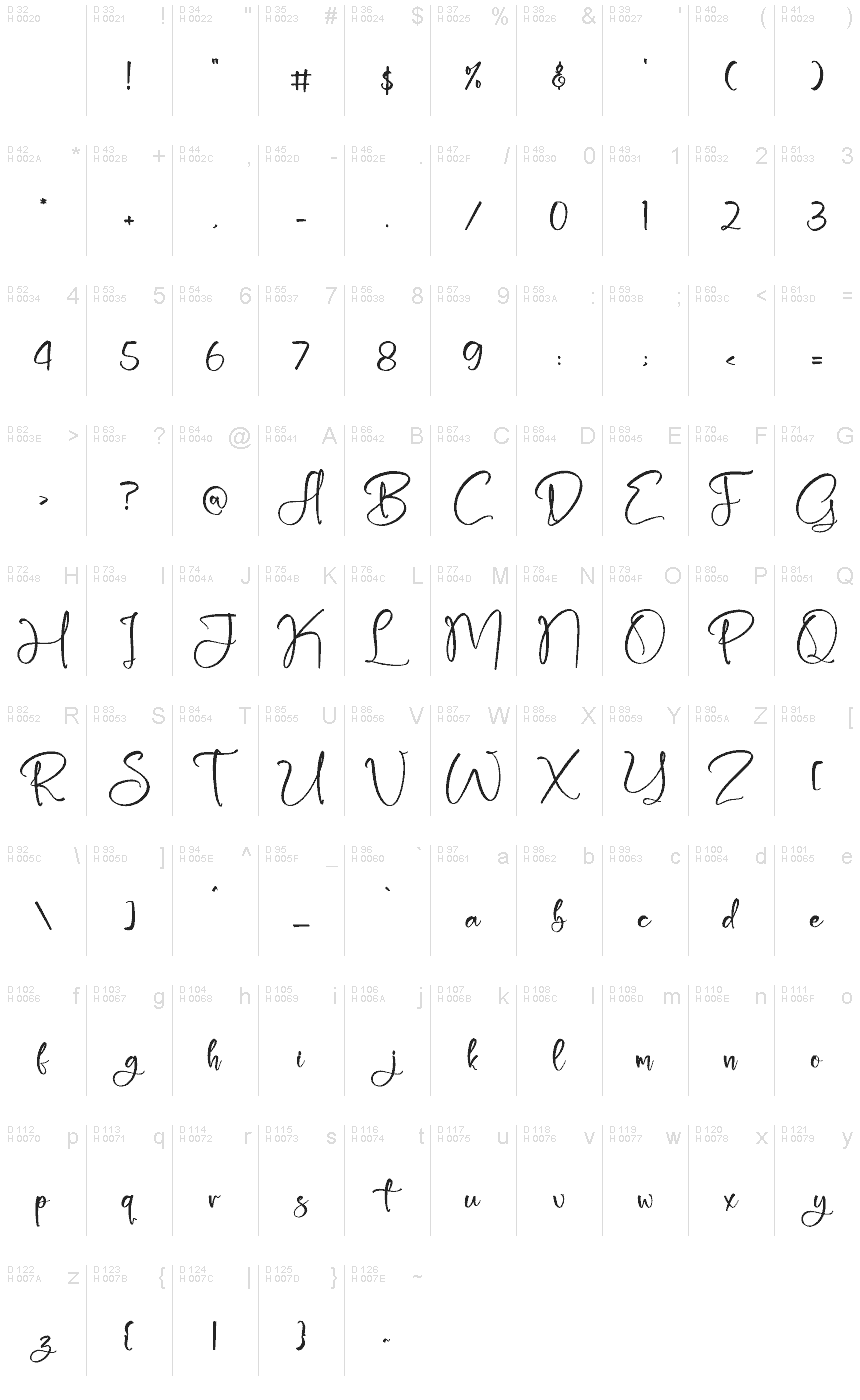
Herttlay Elizabeth
Herttlay Elizabeth font is a handwritten creation by Letterena Studios that brings a flourish to any design. Light and expressive, this free font captivates audiences with its elegant flowing script and gentle curves. It’s perfect for adding personality and charm to professional projects like advertisements, packaging, or headings that call for an exceptional touch.
Use it in business cards, websites, blogs, branding materials such as logos or labels. Top your greeting cards or invitations with this lovely font too when preparing them for weddings or other events like holidays. Herttlay Elizabeth can also benefit your art prints by bringing elegance through quotes and messages you prepare with it!